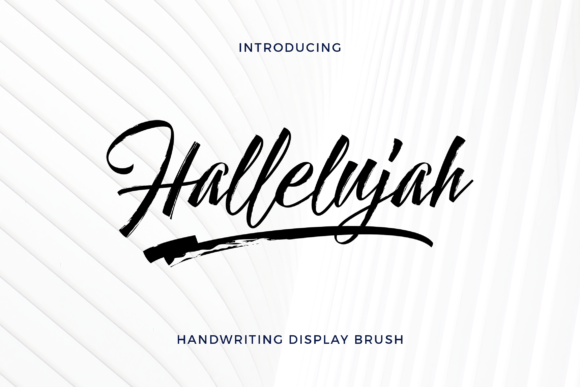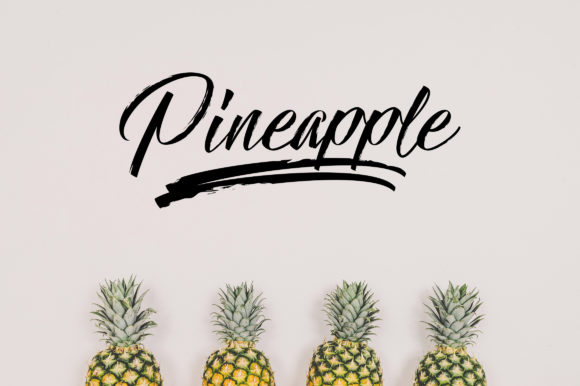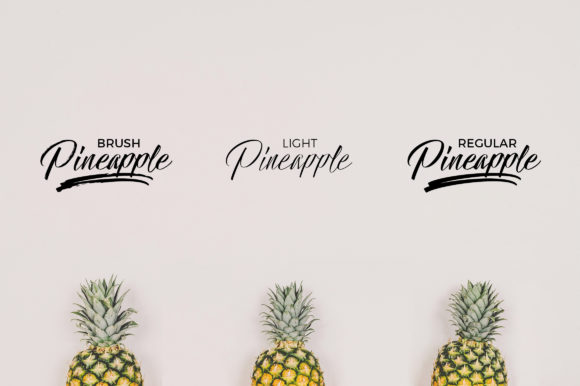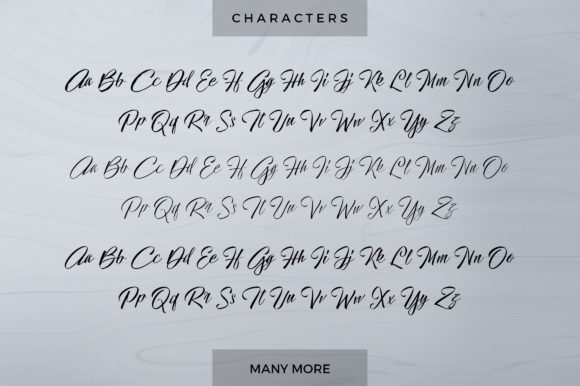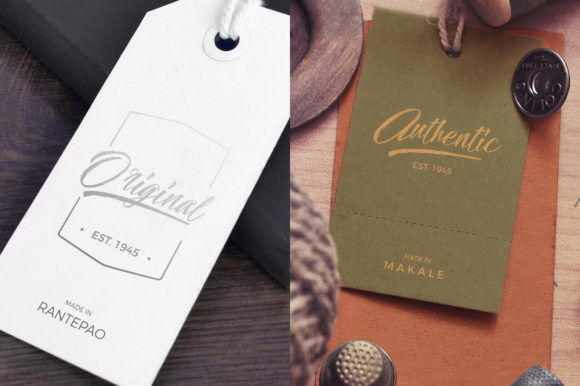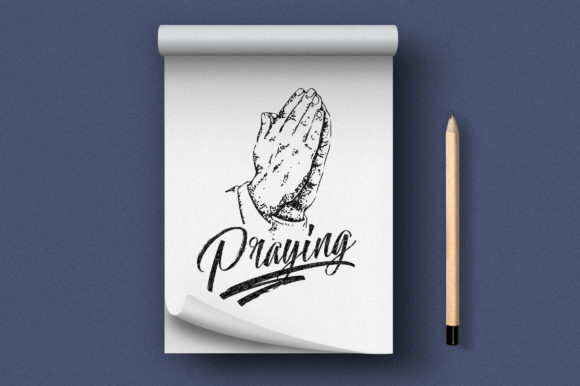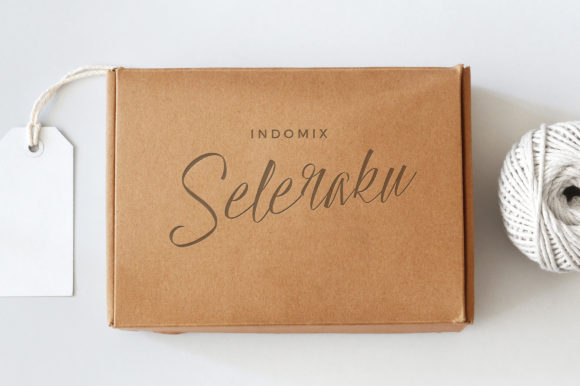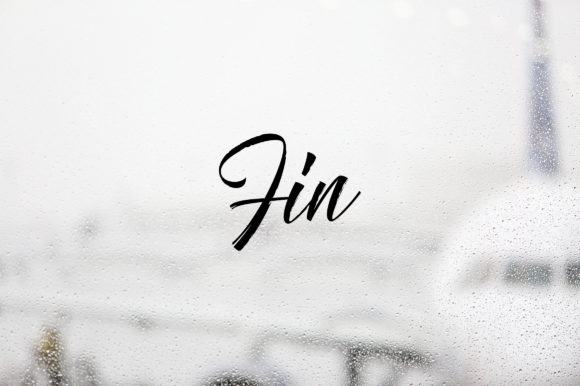
Hallelujah Font
About Hallelujah Font
Hallelujah stands out as a brushed and stylish script font, designed to infuse your text with a beautiful and distinctive appearance. This font is an ideal choice for a multitude of creative applications, showcasing its versatility across branding, logo design, headers, posters, apparel, packaging, business cards, and beyond.
The brushed quality of Hallelujah imparts a dynamic and textured feel to the text, adding an element of authenticity and creativity. Whether used in branding or logo projects, this font leaves a lasting impression, capturing attention with its stylish script design.
Headers and posters benefit from Hallelujah’s bold and expressive strokes, making your text visually engaging and impactful. The font’s ability to convey a sense of style enhances the overall aesthetic of your designs, ensuring that they stand out in various contexts.
Apparel and packaging projects take on a unique and trendy flair with the inclusion of Hallelujah. The stylish script font adds a touch of personality and sophistication, making it well-suited for creating memorable and visually appealing product branding.
For business cards and other professional applications, Hallelujah brings a balance of creativity and professionalism. Its brushed and stylish script design adds a touch of uniqueness, allowing your text to leave a lasting impression on clients and contacts.
In essence, Hallelujah isn’t just a font; it’s a versatile tool that enhances the visual impact of your text across a spectrum of design projects. Its brushed and stylish script nature makes it an excellent choice for those seeking a font that effortlessly blends creativity with a contemporary aesthetic, ensuring that your designs make a lasting and beautiful statement.